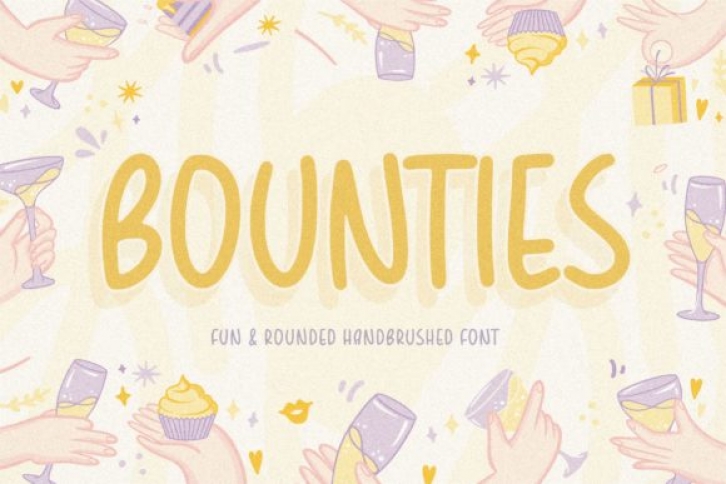
Bounties is a fun, round, hand-brushed, and handwritten font that has an innocent and clean style. It is perfect for product packaging, branding project, magazine, social media, wedding invitations and so much more!